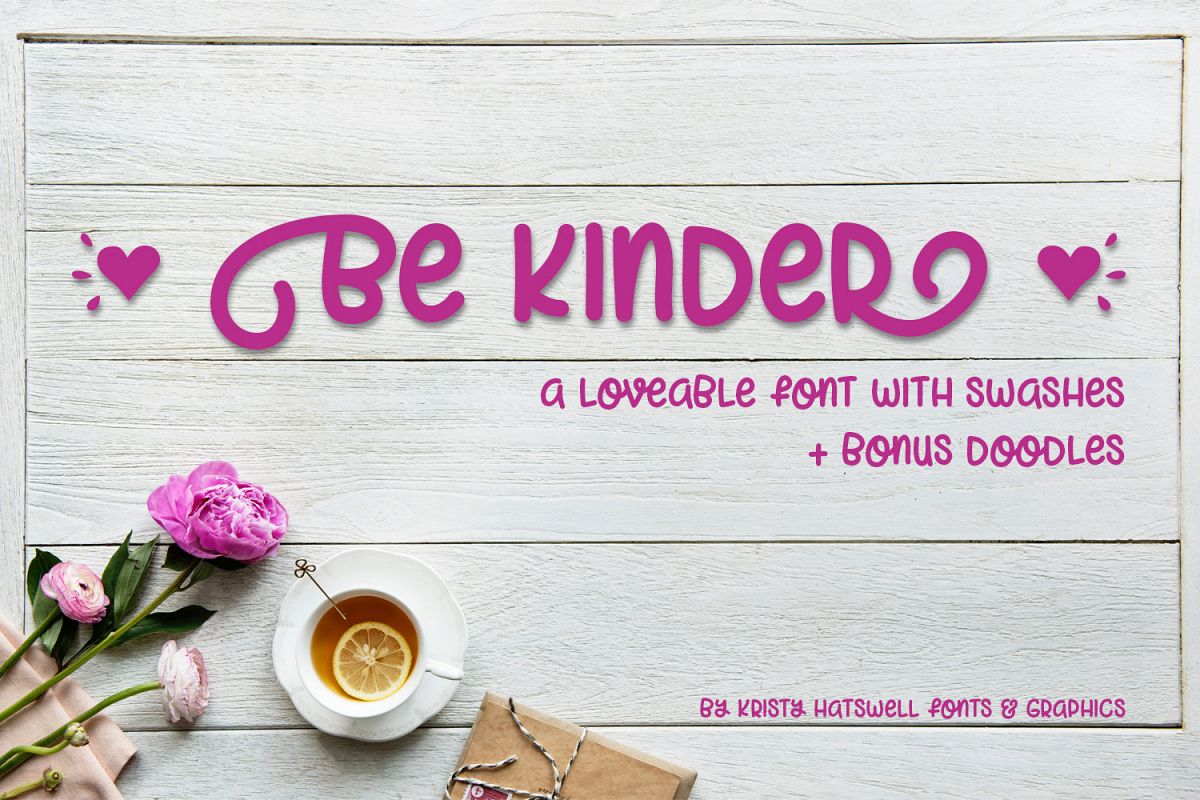
Be Kinder is a loveable handwritten font that is soft and smooth.
Looks great on anything that needs fun and relaxed vibes, such as t-shirts, invitations, cards, posters, and much more.
Multilingual, with support for the swash alternates also. Plus, a bonus ornaments file, including hand-drawn doodles.